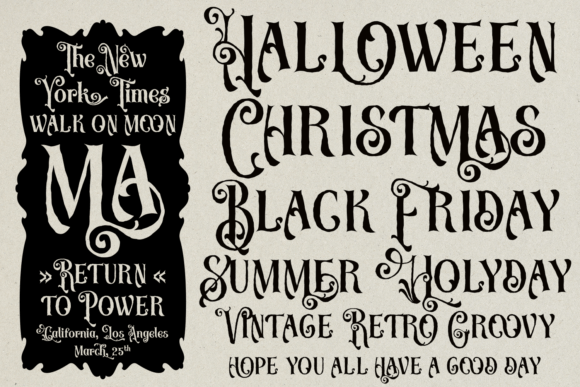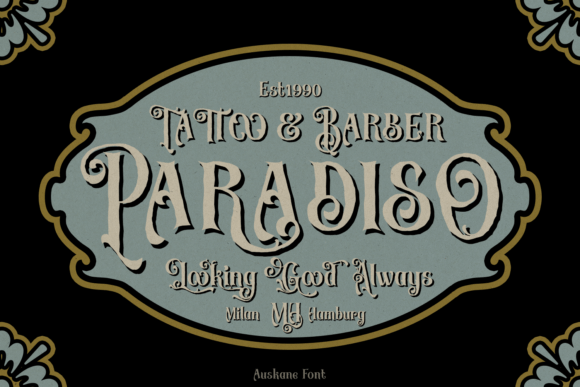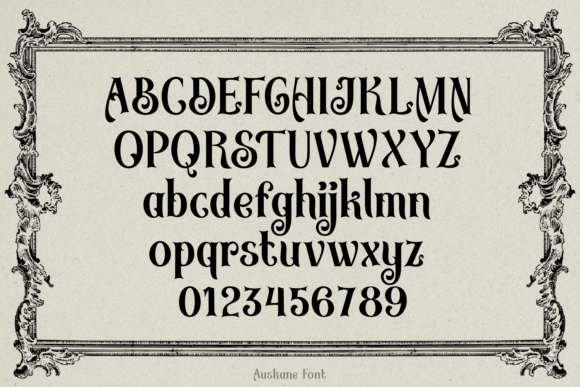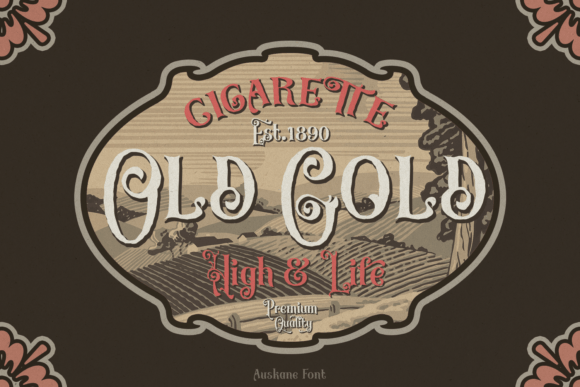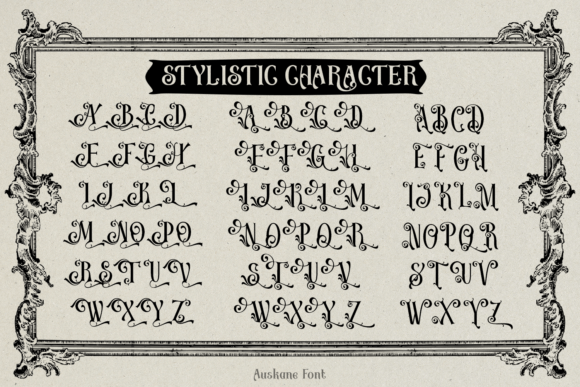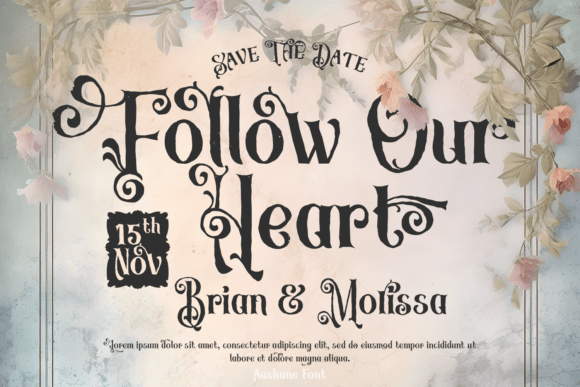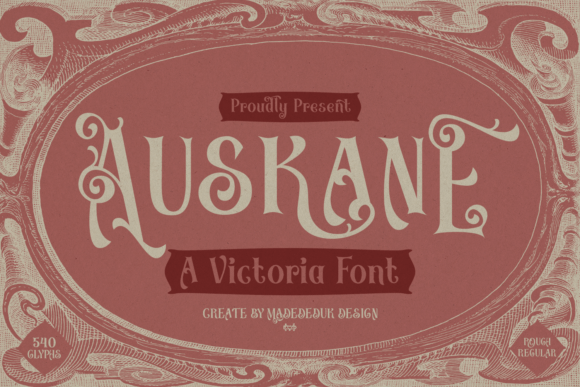
Introducing Auskane Font: A Timeless Victorian Elegance
We are thrilled to present Auskane, a stunning Victorian font that embodies the essence of 19th-century typography with an elegant touch. This beautiful font is designed to bring a classic feel to your designs, making it perfect for crafters and designers seeking a vintage and luxurious aesthetic.
The Inspiration Behind Auskane
Auskane font draws inspiration from the ornate typography of the Victorian era, characterized by intricate details, flourishes, and a sense of grandeur. The font’s classic feel is reminiscent of the elegant lettering found in antique books, posters, and advertisements from the 19th century.
What to Expect from Auskane
Auskane font comes in two distinct versions: regular and rough. The regular version boasts a refined, polished look, while the rough version features a more distressed, vintage feel. This versatility allows designers to choose the perfect style to suit their project’s needs.
Key Features of Auskane Font
- Old Fancy Lettering: Auskane features intricate, ornate lettering that adds a touch of sophistication to any design.
- Vintage Illustration: The font comes with a range of vintage-inspired illustrations, perfect for adding a unique touch to your designs.
- Victorian Calligraphy: Auskane’s calligraphic elements evoke the elegance and refinement of traditional Victorian script.
Perfect for Display Purposes
Auskane font is ideal for a wide range of display purposes, including:
- Book Covers: Add a touch of classic elegance to your book covers with Auskane’s sophisticated font.
- Product Labels: Create eye-catching product labels that evoke a sense of luxury and refinement.
- Logos and Badges: Use Auskane to create stunning logos and badges that convey a sense of tradition and heritage.
- Drink Bottles: Add a vintage touch to your drink bottle designs with Auskane’s elegant font.
- Tattoo Shops: Create unique and eye-catching signage for tattoo shops with Auskane’s bold, distressed style.
- Coffee Shops: Add a touch of sophistication to your coffee shop branding with Auskane’s refined font.
- Fashion Products: Use Auskane to create stunning fashion product labels, packaging, and marketing materials.
- Wedding Invitations: Create beautiful, elegant wedding invitations that set the tone for a sophisticated and memorable event.
Why Choose Auskane Font?
Auskane font offers a unique combination of elegance, sophistication, and versatility, making it an excellent choice for designers and crafters seeking a high-quality, Victorian-inspired font. With Auskane, you can:
- Add a Touch of Luxury: Elevate your designs with Auskane’s refined, elegant font.
- Stand Out from the Crowd: Use Auskane to create unique and eye-catching designs that set you apart from the competition.
- Save Time and Effort: With Auskane’s comprehensive set of features and illustrations, you can save time and effort in your design process.
In conclusion, Auskane font is a timeless, elegant, and versatile font that is perfect for designers and crafters seeking a Victorian-inspired aesthetic. With its refined and distressed versions, old fancy lettering, vintage illustrations, and Victorian calligraphy, Auskane offers a wide range of creative possibilities. Whether you’re designing book covers, product labels, logos, or wedding invitations, Auskane font is sure to add a touch of luxury and sophistication to your designs.